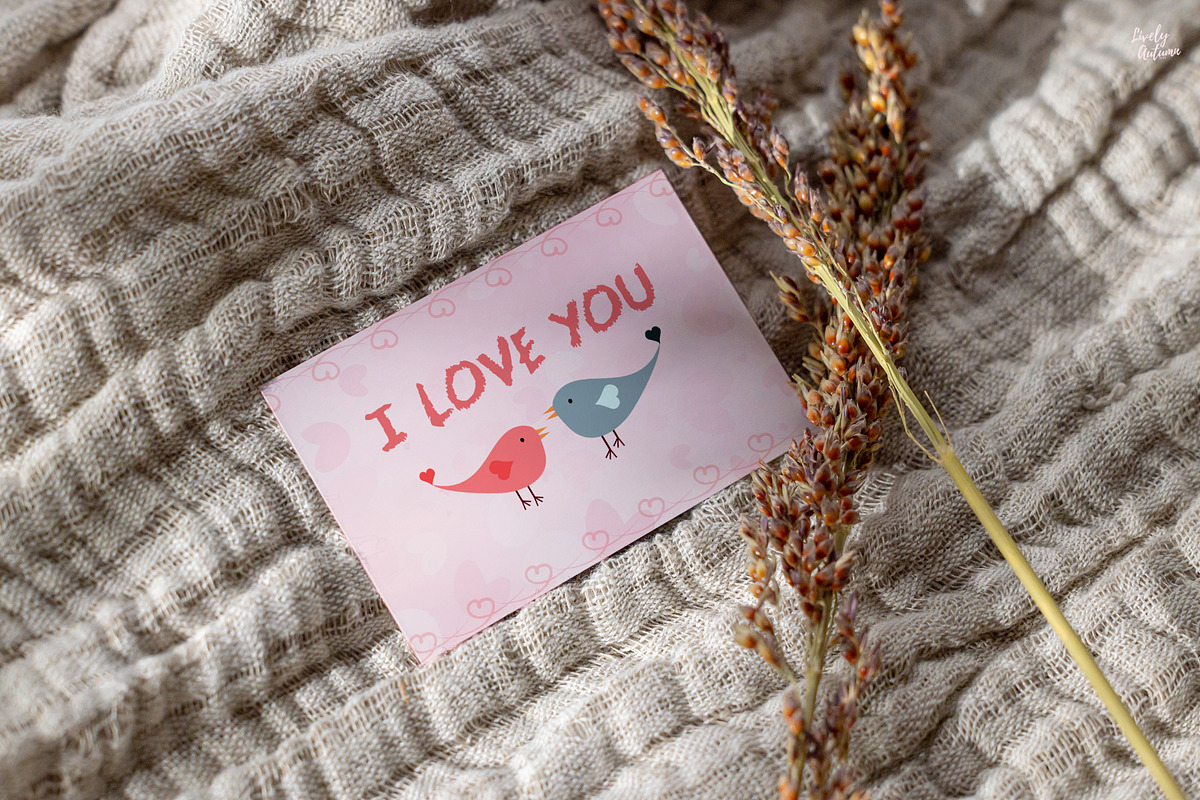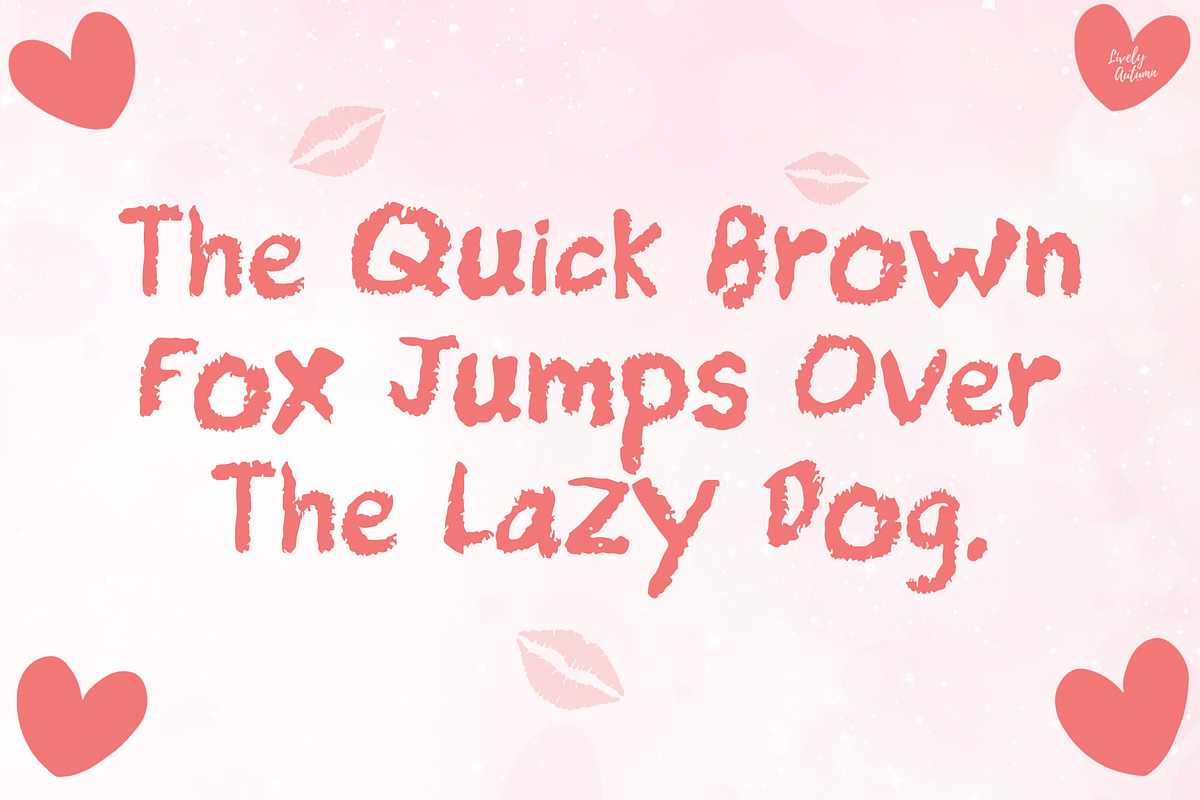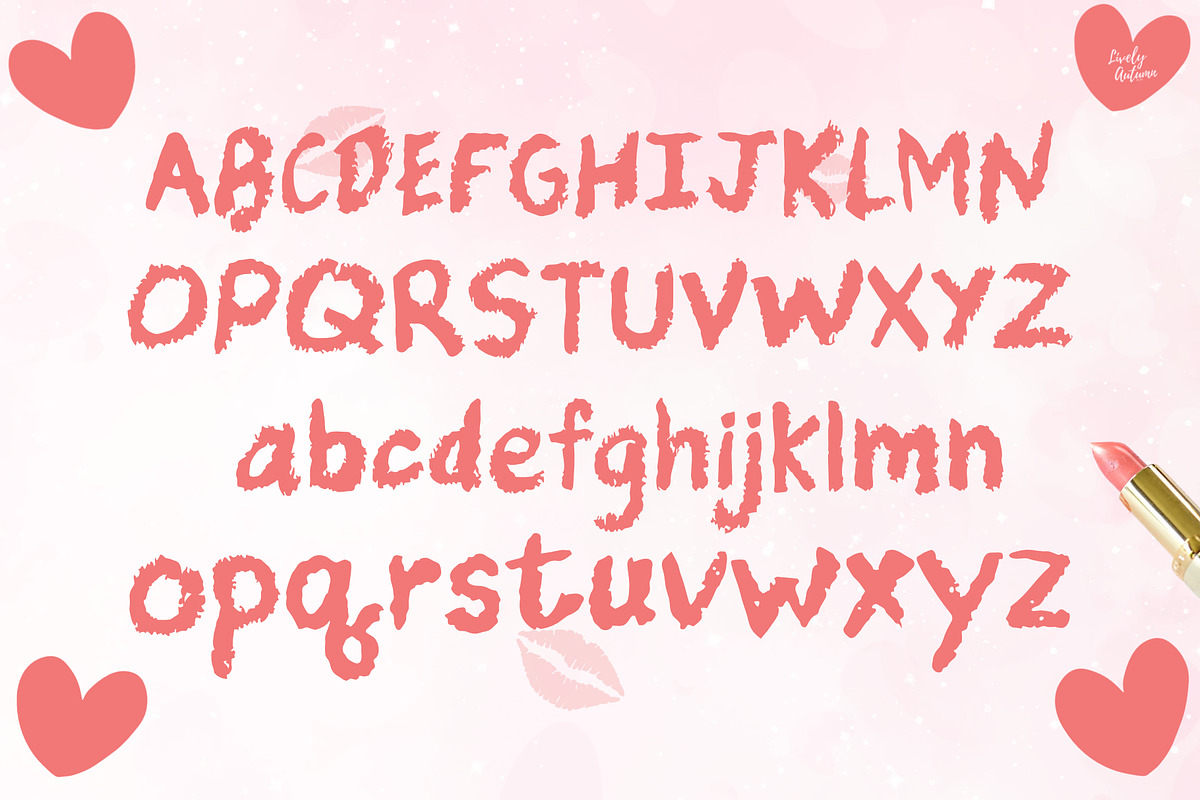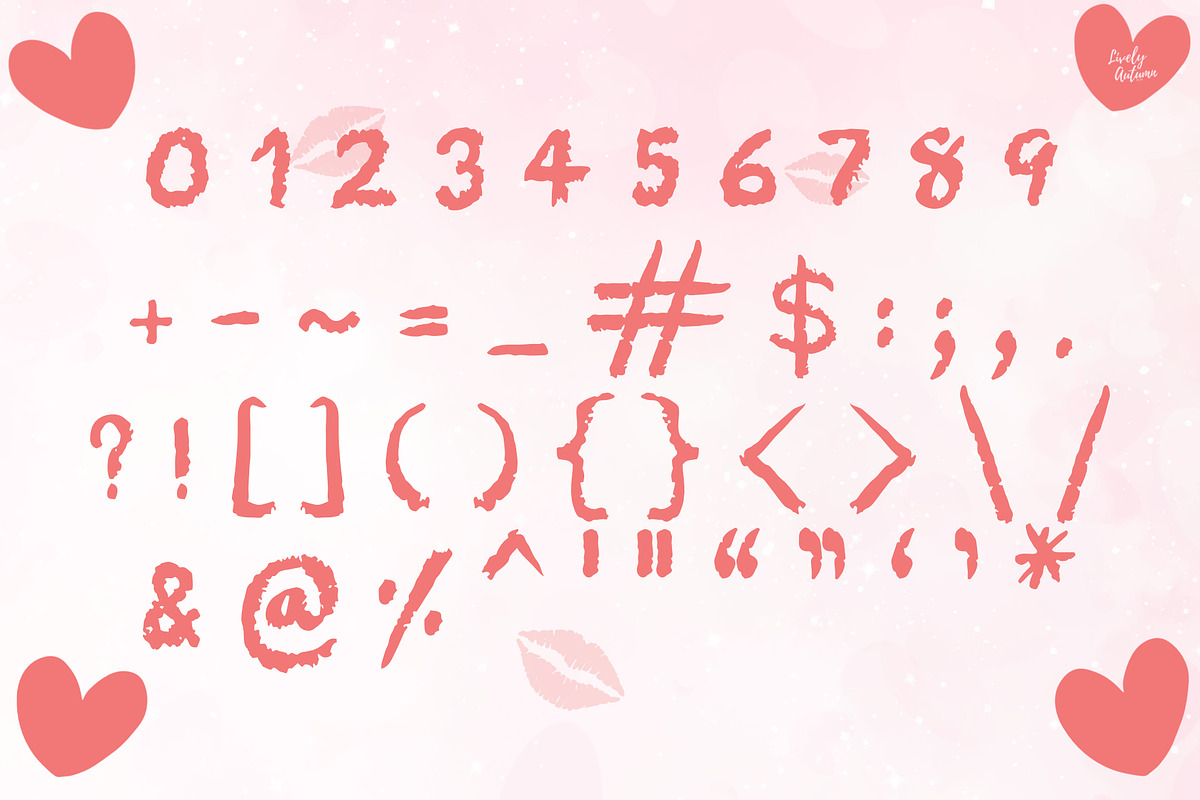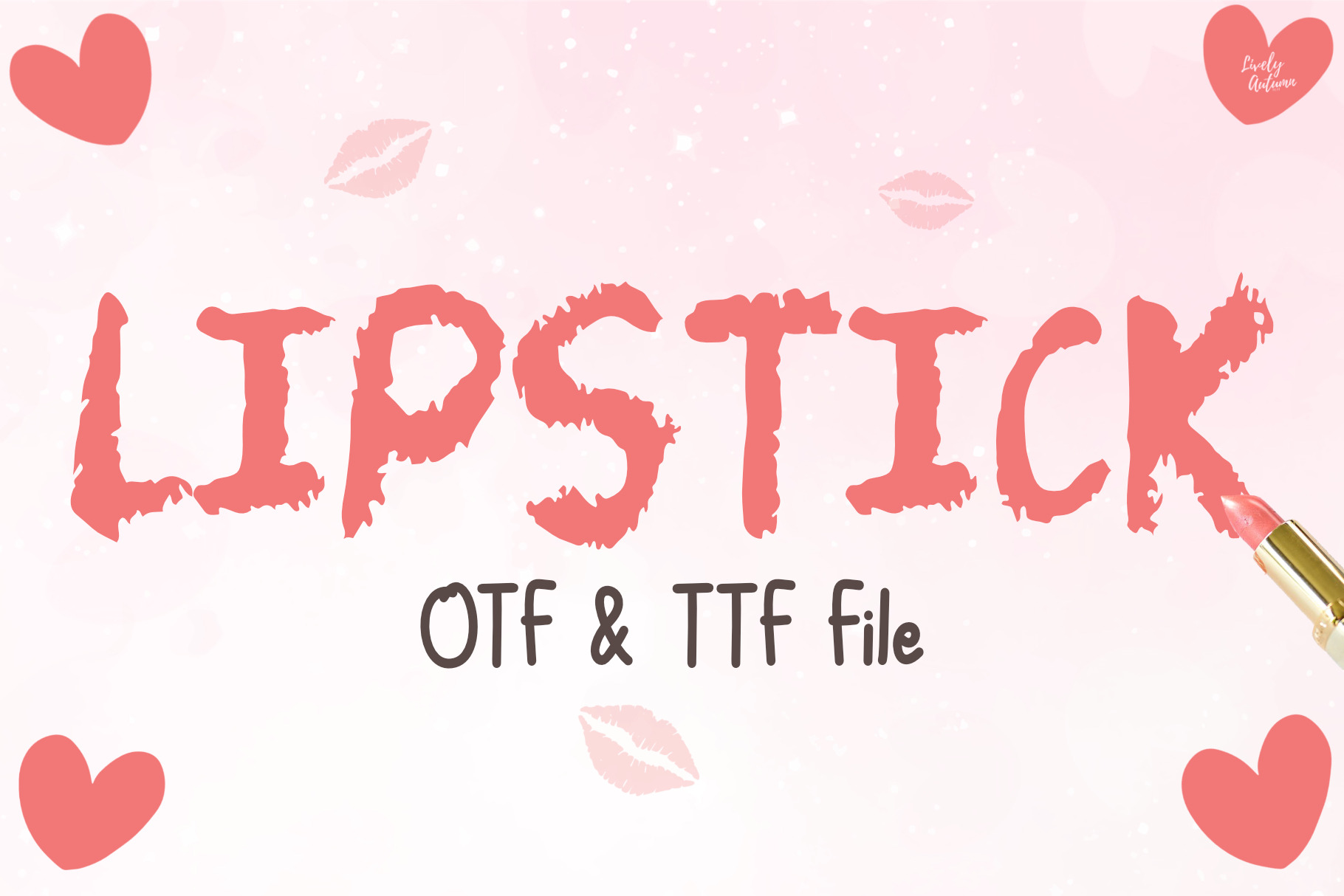
Lipstick | Handwriting font
Lipstick Font is a handwriting font that is written with lipstick. Perfect for your personal projects, Valentine projects and various project. From invitations to posters, social media graphics, journals, greeting cards, and much more.
- Font includes: uppercase, lowercase, numbers, and punctuation.